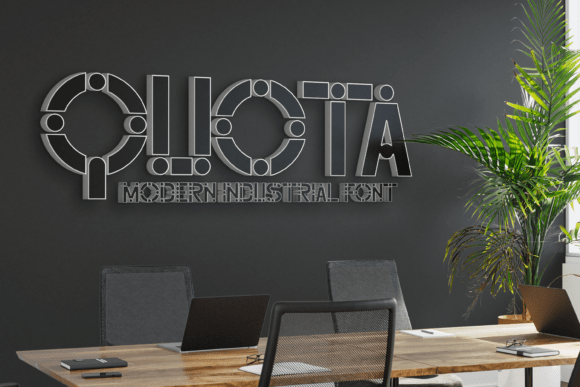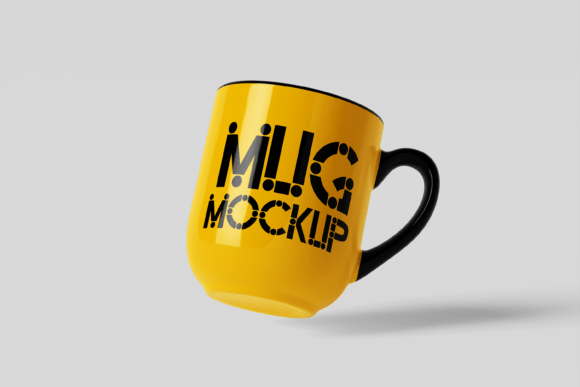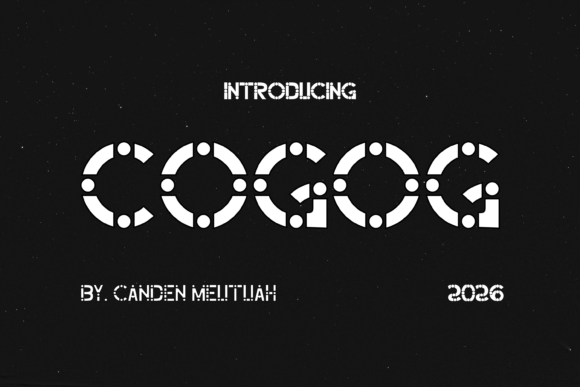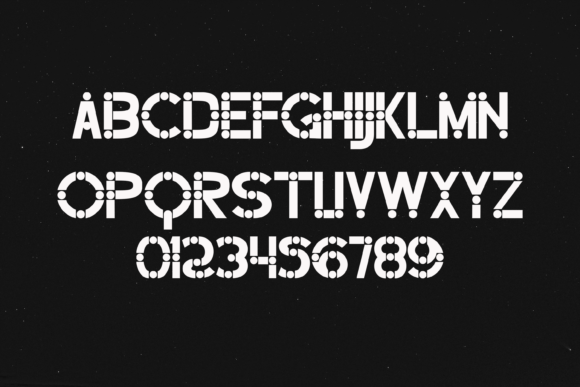
Precision Meets Creativity: Unleashing the Power of Cogog Font
In the realm of typography, few fonts have managed to strike a balance between precision and creativity as effectively as Cogog. This striking mechanical display typeface has been engineered to perfection, boasting bold, circular letterforms that evoke the industrial aesthetic of interlocking gears and high-tech components. The result is a font that feels both futuristic and fundamentally structural, making it an extraordinary choice for designers and crafters looking to elevate their visual identity.
The Design Philosophy Behind Cogog
Cogog’s unique character is defined by its rhythmic stencil-like apertures and precision-dot connectors. These design elements work in harmony to create a visual language that is both modern and mechanized. The font’s geometric engineering is reminiscent of high-tech machinery, making it an ideal choice for aerospace engineering logos, high-tech hardware branding, and modern architectural signage.
The design philosophy behind Cogog is rooted in the idea of precision meets creativity. The font’s creator has meticulously crafted each letterform to convey a sense of unyielding professional authority and polished industrial beauty. The result is a font that delivers a sense of legendary presence to your headlines, ensuring that your visual identity stands out from the crowd.
Applications of Cogog Font
Cogog’s versatility makes it an excellent choice for a wide range of applications. Some of the most notable uses of this font include:
- Aerospace Engineering Logos: Cogog’s industrial aesthetic and precision engineering make it an ideal choice for aerospace engineering logos. The font’s bold, circular letterforms evoke the sense of high-tech machinery and innovation that is synonymous with the aerospace industry.
- High-Tech Hardware Branding: Cogog’s futuristic and mechanized design makes it a natural fit for high-tech hardware branding. The font’s precision-dot connectors and stencil-like apertures create a visual language that feels both modern and cutting-edge.
- Cyberpunk-Inspired Editorial Headers: Cogog’s bold and industrial aesthetic makes it an excellent choice for cyberpunk-inspired editorial headers. The font’s unique character adds a touch of futurism and sophistication to any editorial piece.
- Modern Architectural Signage: Cogog’s precision engineering and industrial aesthetic make it an ideal choice for modern architectural signage. The font’s bold, circular letterforms create a sense of professionalism and authority that is perfect for signage applications.
Key Features of Cogog Font
Cogog’s key features make it a standout font in the world of typography. Some of the most notable features of this font include:
- Bold, Circular Letterforms: Cogog’s bold, circular letterforms are a defining feature of the font. The circular shape creates a sense of unity and cohesion, making it perfect for logos and branding applications.
- Rhythmic Stencil-Like Apertures: Cogog’s stencil-like apertures add a touch of industrial aesthetic to the font. The rhythmic pattern creates a sense of movement and energy, making it perfect for editorial headers and signage applications.
- Precision-Dot Connectors: Cogog’s precision-dot connectors are a hallmark of the font’s precision engineering. The connectors create a sense of modernity and sophistication, making it perfect for high-tech hardware branding and aerospace engineering logos.
| Author | Canden Meutuah |
In conclusion, Cogog font is a masterpiece of geometric engineering that delivers a sense of unyielding professional authority and polished industrial beauty to your visual identity. Its unique character, defined by rhythmic stencil-like apertures and precision-dot connectors, creates a visual language that feels both futuristic and fundamentally structural. Whether you’re a designer or crafter looking to elevate your visual identity, Cogog is an extraordinary choice that is sure to make a lasting impression.
With its versatility, precision engineering, and industrial aesthetic, Cogog font is an excellent addition to any design arsenal. So why settle for ordinary fonts when you can unleash the power of Cogog and take your visual identity to the next level?